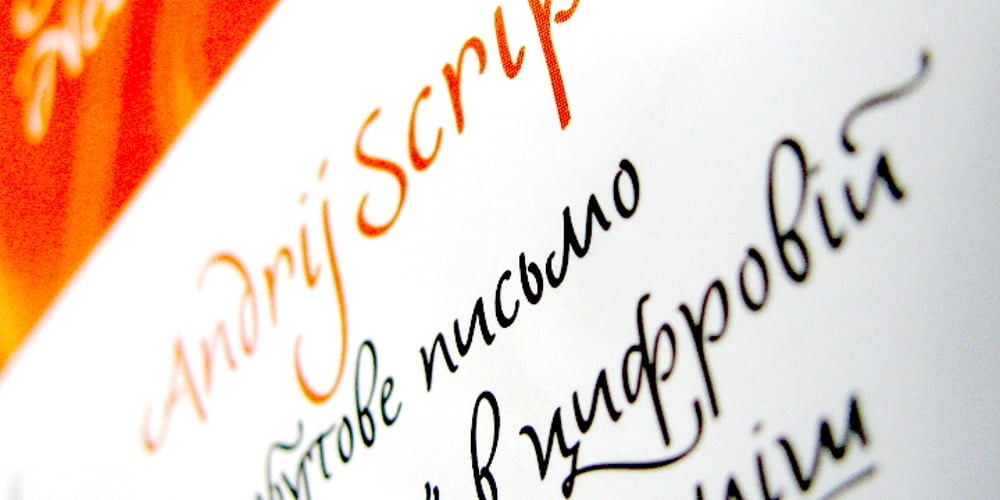
AndrijScript Cyrillic Font Family was designed by Andrij Shevchenko and published by AndrijType. AndrijScript Cyrillic contains 3 styles and family package options. The glyphs of AndrijScript typeface are based on usual calligrapher’s handwriting, my own native Cyrillic. This strange mix of freedom and professionalism looks vivid but a bit elegant. In three very different weights it has some ligatures and contextual alternatives for more natural look. All you need is love, you know 😉